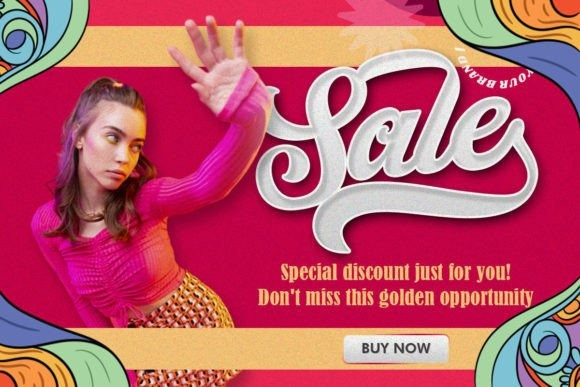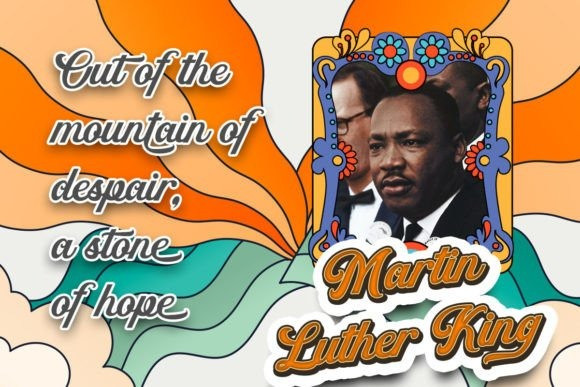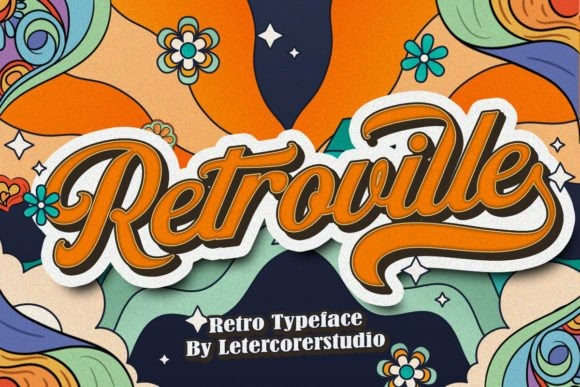
Retroville Font
Retroville Font is a retro bold script that will bring you back to the 60s feel. This typeface has the extruded version so you can create your retro effect font with ease. This font is perfectly made to be applied especially in logos, and other various formal forms such as invitations, labels, logos, magazines, books, greeting/wedding cards, packaging, fashion, make-up, stationery, novels, labels, or any type of advertising purpose.